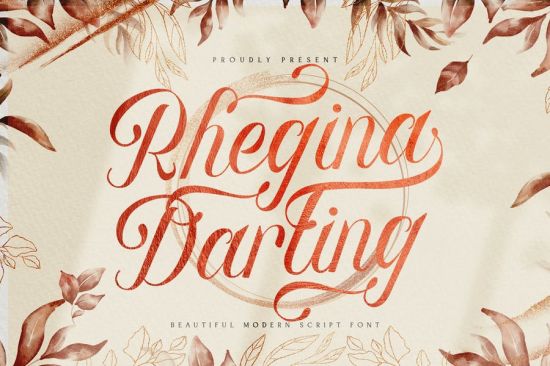
Introducing Rhegina Darling - Lovely Modern Script Font
Rhegina Darling is a flowing handwritten font, described by an elegant touch, perfect for your favorite projects. Fall in love with its incredibly distinct and timeless style and use it to create spectacular designs!